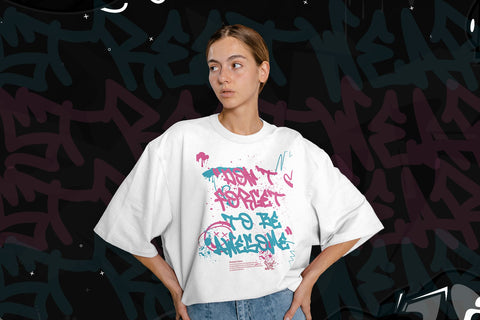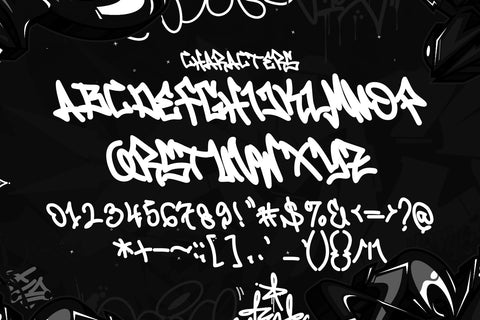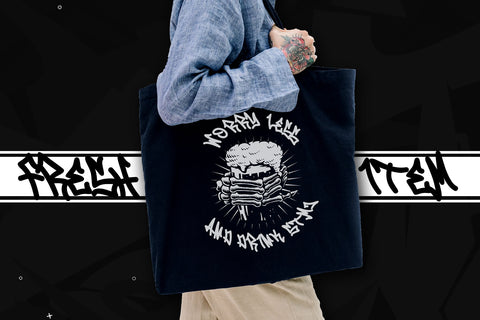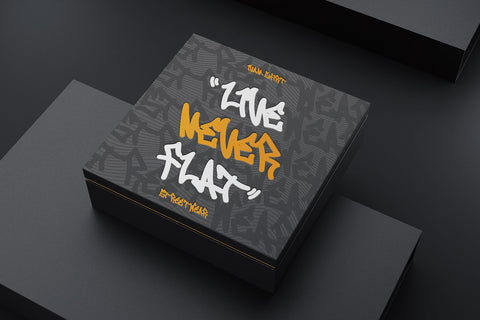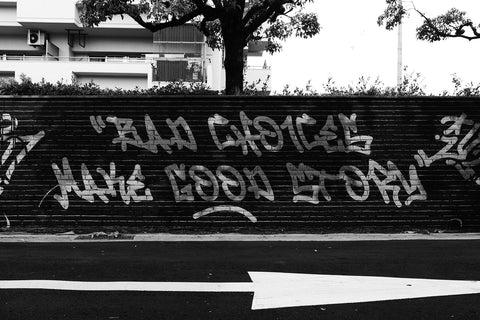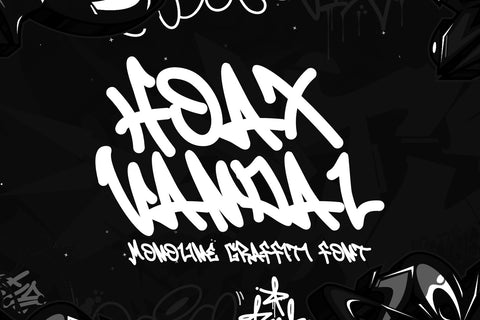
Hoax Vandal - Monoline Graffiti Font
"Hoax Vandal" is a graffiti font designed with a monoline style, featuring consistent line thickness throughout the characters. Fonts in the monoline category maintain uniformity in stroke width, creating a clean and sleek appearance. In the context of graffiti, this style often provides a smooth and fluid look to the text, giving it a modern and artistic vibe.